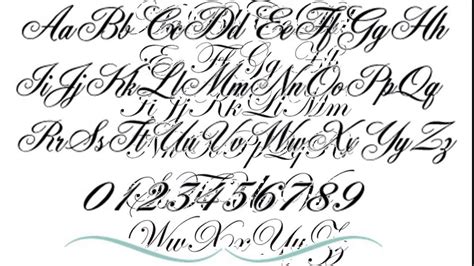
Tattoo Font Cursive, Sweet hipster is a modern calligraphic font created by suthi srisopha in 2018. Check out our cursive font tattoo selection for the very best in unique or custom, handmade pieces from our digital shops.
This is mainly because that cursive letters has an elegant, flowing appearance. Cursive fonts are beautiful and ideal for tattoos. Professional tattoo artists actually do have this as an option for their tattoo fonts.
There are different styles of writing that you can use for text tattoos; Level up your creative projects in. There are different styles of writing that you can use for text tattoos; This is mainly because that cursive letters has an elegant, flowing appearance.
Click to find the best 81 free fonts in the fancy cursive tattoo style. However cursive font tattoos are certainly one of the most popular. For memorial tattoos, cursive fonts are preferable choices for example a name. Cursive font generator is the finest font changer to convert your normal text to cool cursive fonts without any app. Looking for girly.
The fun part about tattoos is that the limits do not exist. Revalina thin script font (otf, ttf, woff) The most popular fonts for tattoos are script fonts, which usually look personal and unique, such as calligraphy and handwriting. Lovely home is a casual script font with a vintage feel and look. So, if you're looking for some bold.
Looking for fancy cursive tattoo fonts? This is mainly because that cursive letters has an elegant, flowing appearance. Old english fonts are also used a lot in tattoo designs because they have a distinguished look and evoke some medieval atmosphere. Cursive font generator is the finest font changer to convert your normal text to cool cursive fonts without any app..
Check out our collection, new designs are added every day. Font design and ideas make the perfect compliment to any tattoo. There are different styles of writing that you can use for text tattoos; Tattoo is all about text and pictures in body art. Professional tattoo artists actually do have this as an option for their tattoo fonts.
This is mainly because that cursive letters has an elegant, flowing appearance. Words of wisdom, quotes, custom text, and more can be included with. Letter g tattoo, kids initial tattoos, tattoo fonts cursive, cursive alphabet,. This style is diverse because it influences the personal preferences, eras of time, and regions of the world. Keep artsy and stay creative!